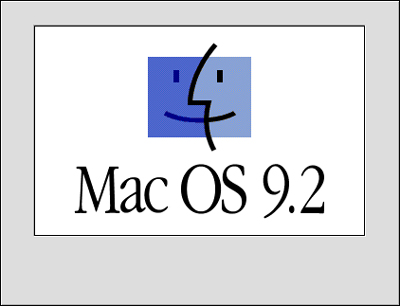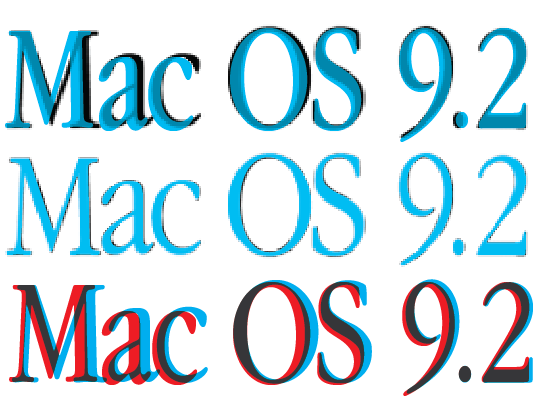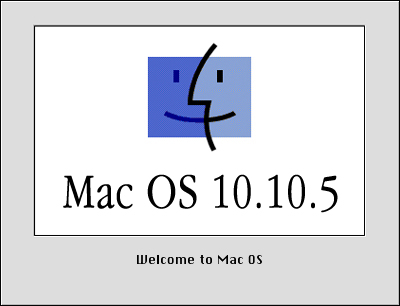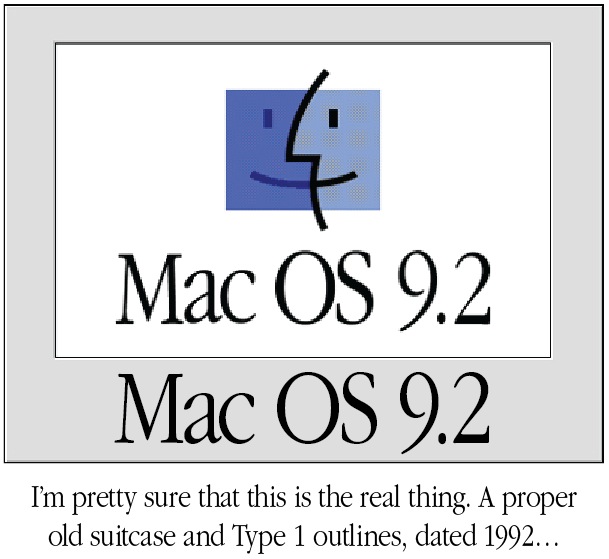
Does anyone know the font for the OS9 splash?
Apple has (or had as I'm not sure they still use it much anymore) their own version of Garamond called Apple Garamond. If you have an old version of Classic (OS 9 or before) you can find it there. It is possible that early releases of OS X had it as well.
Not legit. The real Apple Garamond was a custom condensed version of ITC Garamond with stroke adjustments and new hinting by Bitstream. It has never been released publicly by Apple. A quick glance at the version on DaFont shows that it is simply a version of ITC Garamond mechanically condensed to 80%. This "squashing" has distorted the strokes and made a mess of the spacing.
The kerning is different (I used optical but it's still off) and the font needs to be 13% taller, but the fake Apple Garamond still looks bad because the official font has thinner strokes and the letters have different proportions. I manually moved the letters and thinned them out a bit. Its still a bit off, but close enough.